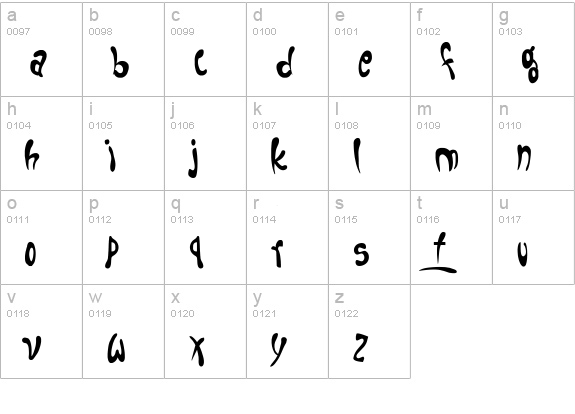
Fruitopia Font Details
Fruitopia font is a delightful and playful typeface that exudes a sense of freshness and fun. With its whimsical curves and vibrant colors, this font is perfect for creating eye-catching designs that stand out from the crowd. Whether you're working on a poster, logo, or website, Fruitopia font will add a touch of sweetness to your project. The best part is that Fruitopia font is completely free to use! You can easily download it at FontsMarket.com and start using it in your designs right away. Don't miss out on this fantastic opportunity to add a dash of fruity charm to your creative projects with the delightful Fruitopia font!